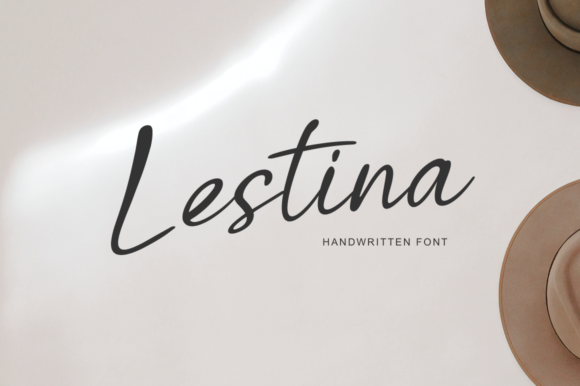
Welcome to the captivating realm of Lestina, a spectacular handwritten font that will ignite your creativity and leave an indelible mark on all your designs. Immerse yourself in the enchanting world of Lestina and discover the boundless possibilities it holds for your next project.
With its graceful strokes and impeccable style, Lestina is a symphony of elegance and beauty. Its intricate details and fluid forms will lend an air of sophistication to all your designs, making them stand out from the crowd. Whether you're crafting heartfelt birthday banners, captivating invitations, or mesmerizing logos, Lestina has the power to transform your vision into a timeless masterpiece.
But Lestina is more than just a beautiful font; it's a gateway to a world of endless possibilities. Its versatility knows no bounds, making it the perfect choice for a wide range of projects. From the intimate charm of personal branding to the grand scale of marketing campaigns, Lestina has the versatility to adapt to any style or purpose. Its ability to evoke emotions and create lasting impressions makes it an invaluable asset for designers and creatives alike.
Lestina is meticulously crafted to ensure effortless use and flawless results. Its PUA encoding grants you easy access to a treasure trove of glyphs and swashes, empowering you to unleash your creativity without limitations. Whether you're a seasoned designer or just starting your journey, Lestina's user-friendliness makes it the perfect companion for all your design adventures.
Imagine the impact Lestina will have on your next project, imbuing it with a touch of grace, a spark of elegance, and a sprinkle of magic. Its ability to evoke emotions and create lasting memories will leave an unforgettable imprint on your audience, ensuring that your designs resonate with them on a deeper level.
Don't hesitate to embrace the allure of Lestina and witness the transformative power it brings to your designs. Its beauty, versatility, and user-friendliness make it the perfect choice for designers of all levels, empowering you to create stunning visuals that will captivate and inspire.
Indulge in the enchanting world of Lestina and unleash the limitless potential it holds for your creativity. Let its graceful strokes and captivating style guide you towards design excellence, leaving a lasting legacy that will endure for years to come.